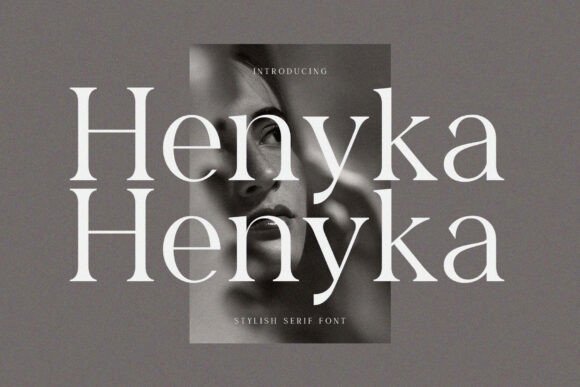
Henyka Font: Elevate Your Design with Timeless Elegance
In the world of typography, fonts play a crucial role in conveying the tone and personality of a brand. Among the numerous fonts available, Henyka stands out as a stylish serif font that seamlessly blends classic elegance with modern aesthetics. With its sleek lines, balanced contrast, and graceful curves, Henyka has become a popular choice for designers seeking to add a touch of sophistication to their visual compositions.
The Essence of Henyka Font
Henyka is more than just a font; it’s a design statement. Its serif structure pays homage to traditional typography, while its sleek lines and modern aesthetic give it a fresh, contemporary feel. This blend of classic and modern elements makes Henyka incredibly versatile, suitable for a wide range of design applications.
Key Features of Henyka Font
- Sleek Lines: Henyka’s sleek lines contribute to its modern appeal, making it perfect for designs that require a clean and streamlined look.
- Balanced Contrast: The font features well-balanced contrast between its thick and thin strokes, enhancing readability and adding depth to the text.
- Graceful Curves: Henyka’s graceful curves bring a sense of elegance and fluidity to the font, making it ideal for designs that require a touch of sophistication.
Applications of Henyka Font
Henyka’s versatility makes it suitable for various design applications. Here are some of the most popular uses of this stylish serif font:
High-Fashion Branding
In the world of high fashion, branding is everything. Henyka’s elegant and sophisticated design makes it a perfect fit for fashion brands looking to establish a luxurious and refined identity. Whether it’s a logo, packaging, or marketing materials, Henyka helps create a cohesive and stylish visual brand.
Magazine Titles
Magazines require a font that can capture attention and convey the tone of the publication. Henyka’s sleek lines and balanced contrast make it an excellent choice for magazine titles, adding a touch of sophistication and elegance to the cover.
Wedding Invitations
Wedding invitations are a special kind of design project, requiring a font that exudes elegance and romance. Henyka’s graceful curves and classic serif structure make it a popular choice for wedding invitations, helping couples create beautiful and memorable invitations.
Design-Forward Logos
Logos are a crucial element of branding, and Henyka is an excellent choice for companies looking to create a sophisticated and modern logo. Its sleek lines, balanced contrast, and elegant curves make it perfect for a wide range of industries, from fashion to finance.
The Benefits of Using Henyka Font
Henyka offers several benefits to designers and brands, making it a popular choice for various design applications. Here are some of the advantages of using Henyka:
Enhances Visual Composition
Henyka’s striking yet soft sophistication enhances any visual composition, adding a touch of elegance and refinement. Its balanced contrast and sleek lines create a harmonious and aesthetically pleasing design.
Versatility
Henyka’s versatility makes it suitable for a wide range of design applications, from high-fashion branding to wedding invitations. Its classic serif structure and modern aesthetic ensure it can adapt to various design styles.
Readability
Henyka’s well-balanced contrast and clear letterforms ensure excellent readability, making it perfect for body text and headlines. Its elegant design does not compromise on functionality, providing a seamless reading experience.
Tips for Using Henyka Font Effectively
To get the most out of Henyka, here are some tips for using it effectively in your designs:
Pair with Complementary Fonts
Henyka pairs well with clean sans-serif fonts, which create a harmonious contrast and add visual interest to the design. Experiment with different font combinations to find the perfect match for your project.
Adjust Font Weights
Henyka comes in various font weights, allowing you to create visual hierarchy and add depth to your design. Use bold weights for headlines and lighter weights for body text to create a clear and readable layout.
Experiment with Colors
Henyka looks stunning in a variety of colors, from classic black and white to bold and bright hues. Experiment with different colors to find the perfect match for your brand or design project.
Henyka font is a stylish serif font that blends classic elegance with modern aesthetics. Its sleek lines, balanced contrast, and graceful curves make it perfect for high-fashion branding, magazine titles, wedding invitations, and design-forward logos. With its versatility, readability, and sophisticated design, Henyka is an excellent choice for designers seeking to add a touch of elegance to their visual compositions.